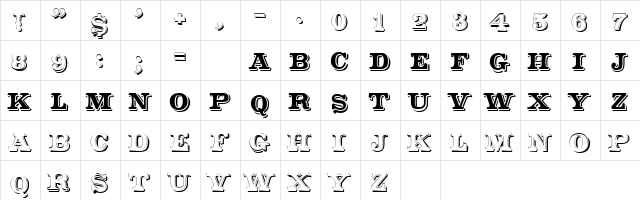
CameoAntique Regular
| Version | CameoAntique is the Outline Shadow version of NightShade. This font was produced by modifying Soft Horizon's NigelSade |
CameoAntique wears its vintage influences proudly, with letterforms that recall mid-century signage, classic packaging, and nostalgia-driven design.
Font Pairing: Combine CameoAntique with a simple slab or neutral sans — period-accurate companions reinforce the vintage feel without competing for attention.
Pro Tip: Use CameoAntique for headlines and pull quotes rather than body copy — its personality is best appreciated in short, focused bursts.